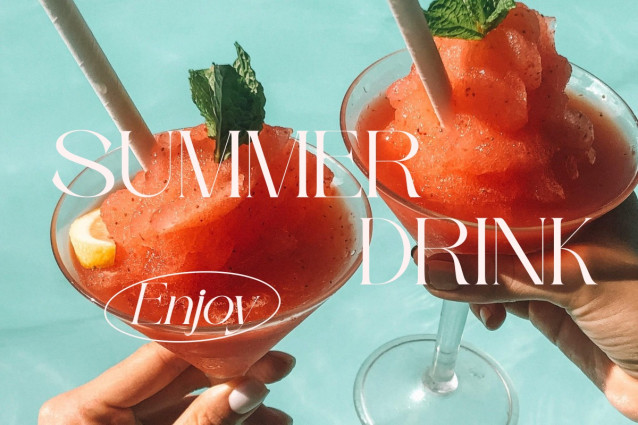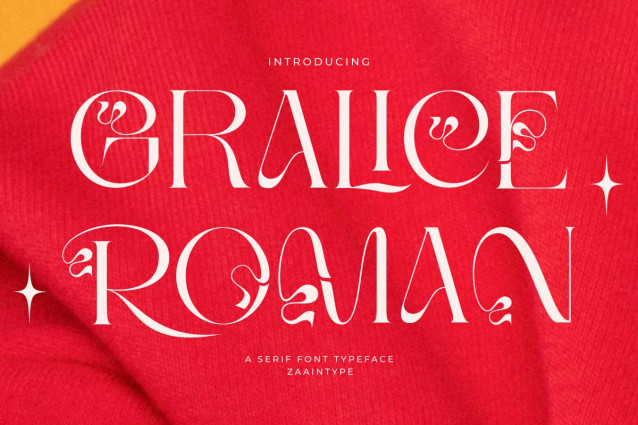
Gralice Roman Font
Gralice Roman Font is an elegant serif typeface with classic proportions and refined details that exude timeless sophistication. Blending sharp lines with graceful curves, it strikes the perfect balance between tradition and modernity. Available in both Regular and Oblique styles, it is perfect for editorials, premium branding, invitations, and any design that seeks a touch of elegance and authority